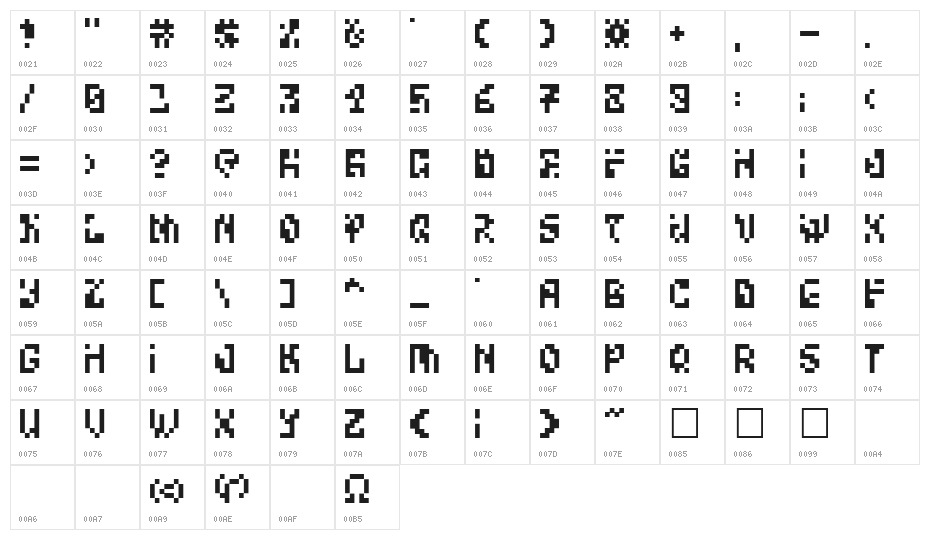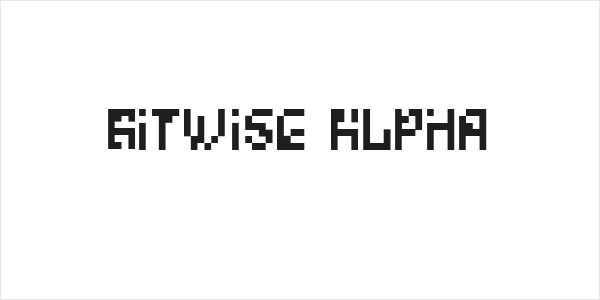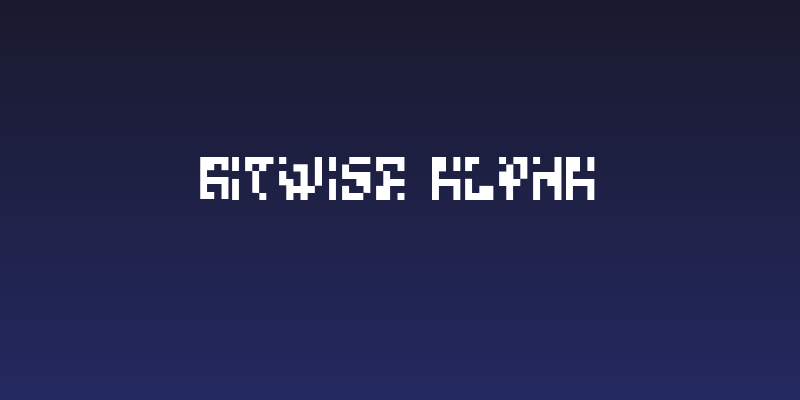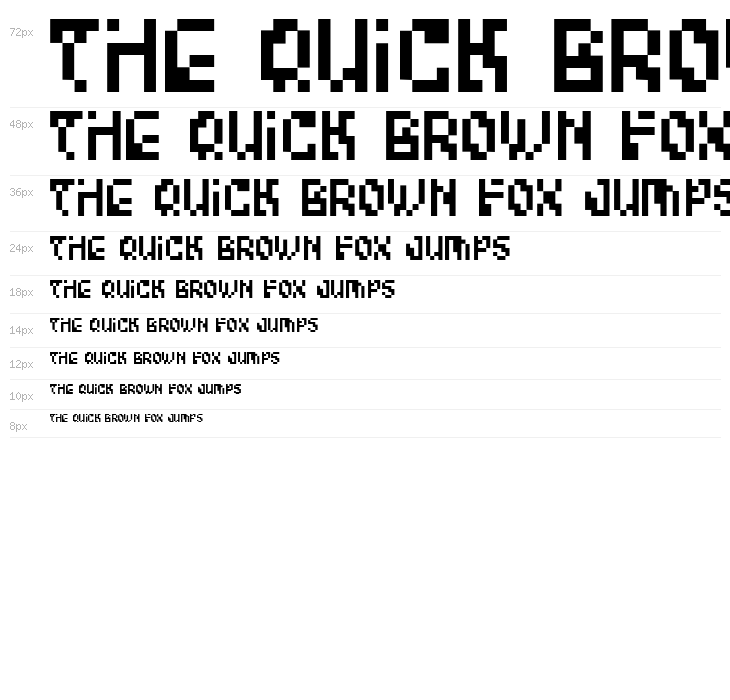
Bitwise Alpha Font
Bitwise Alpha Description
This font features a pixelated, blocky design reminiscent of early digital displays and retro video games. Each character is constructed with a grid-like pattern, giving it a distinctly digital and technical appearance. The uppercase and lowercase letters maintain a consistent height, contributing to a uniform look. Numbers and special characters follow the same pixelated style, ensuring cohesion across all glyphs. The font's simplicity and geometric structure make it highly legible at various sizes, ideal for digital interfaces or projects seeking a nostalgic, tech-inspired aesthetic.